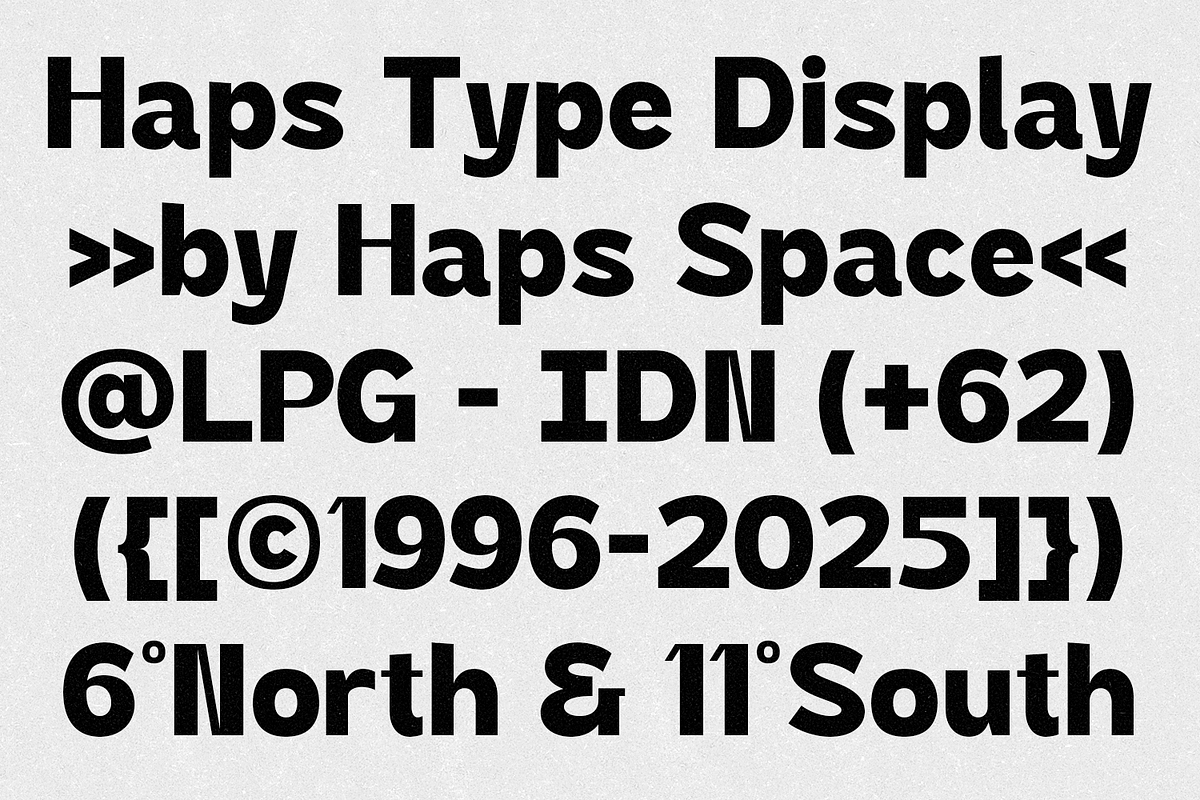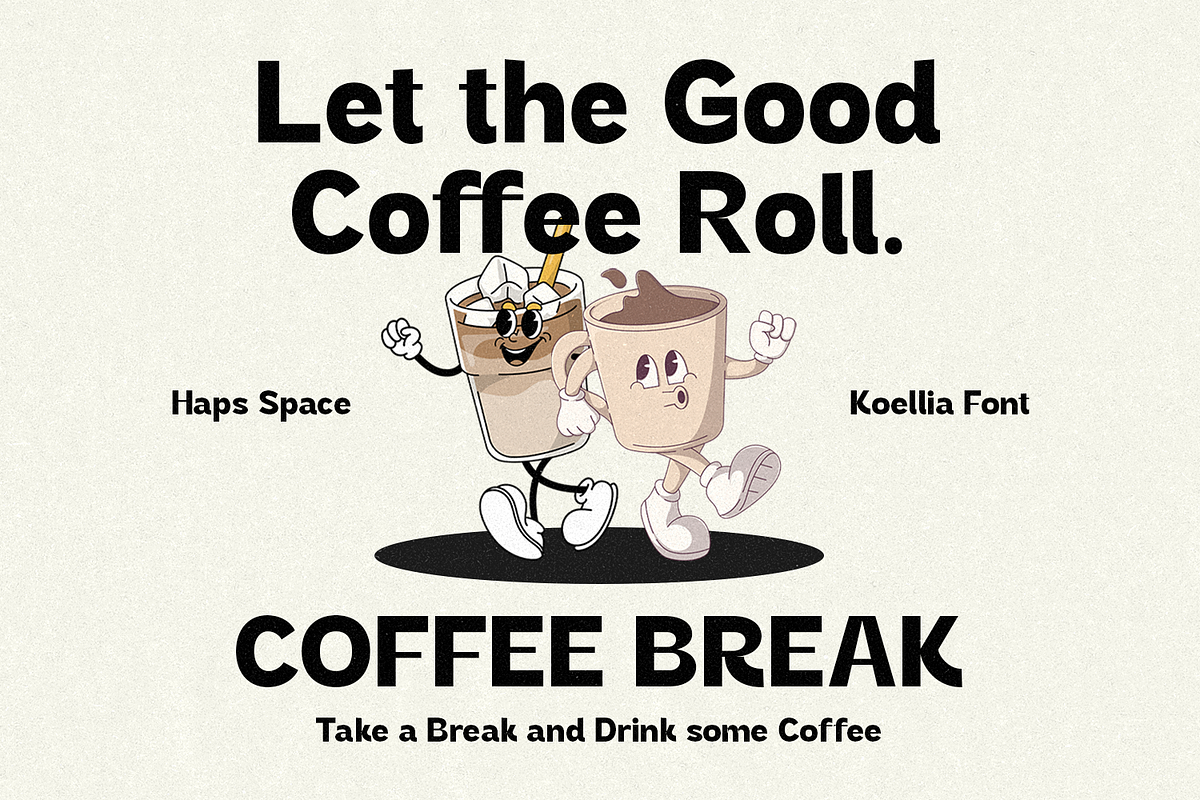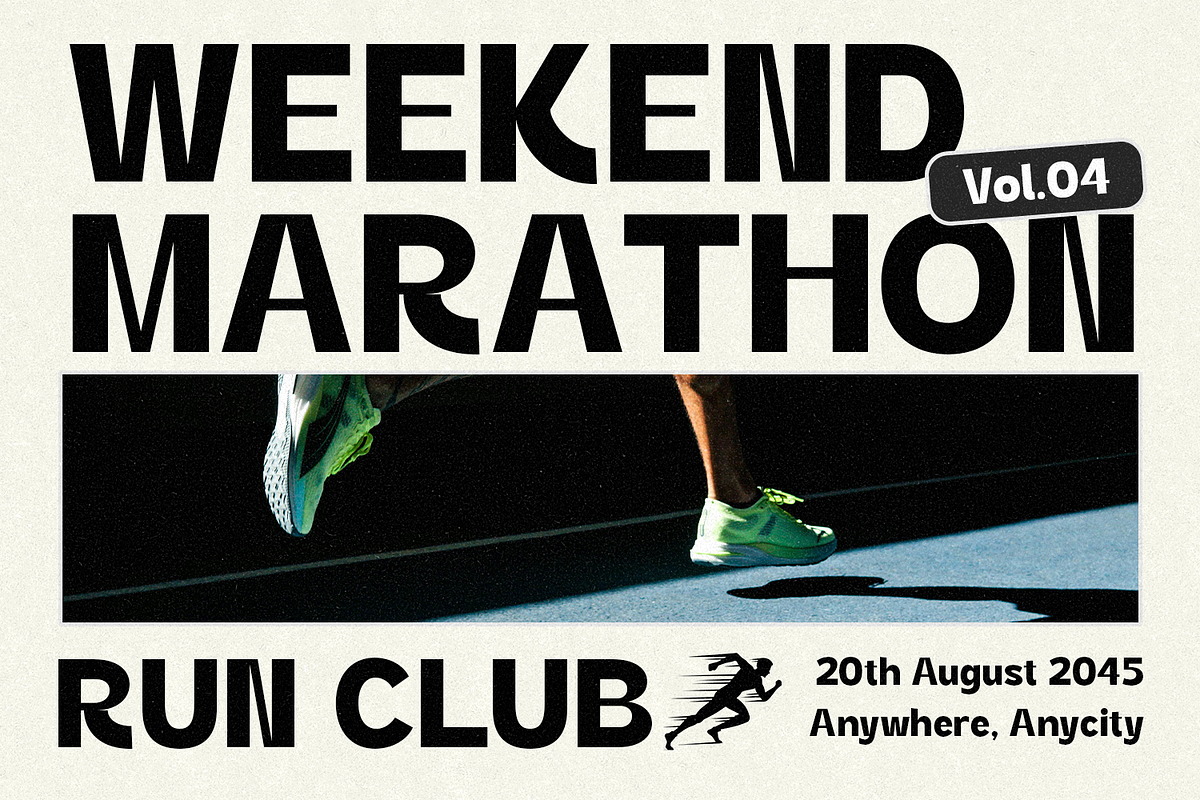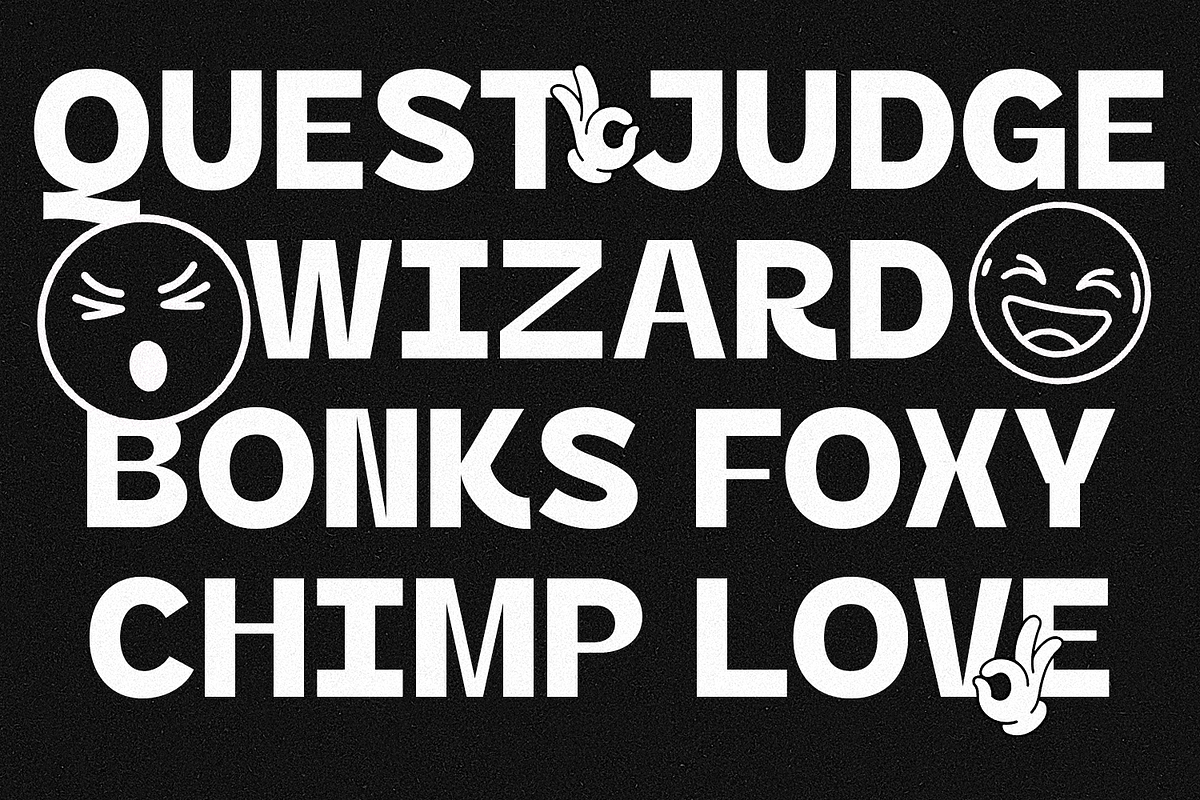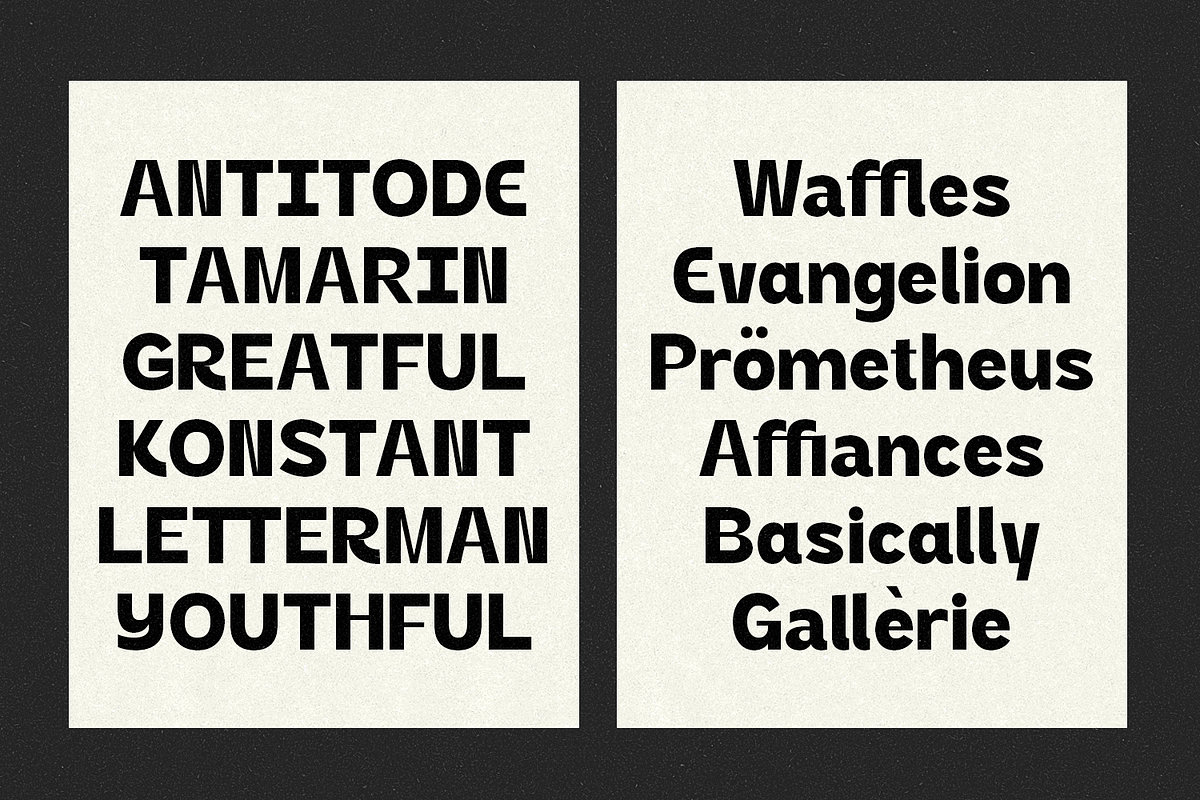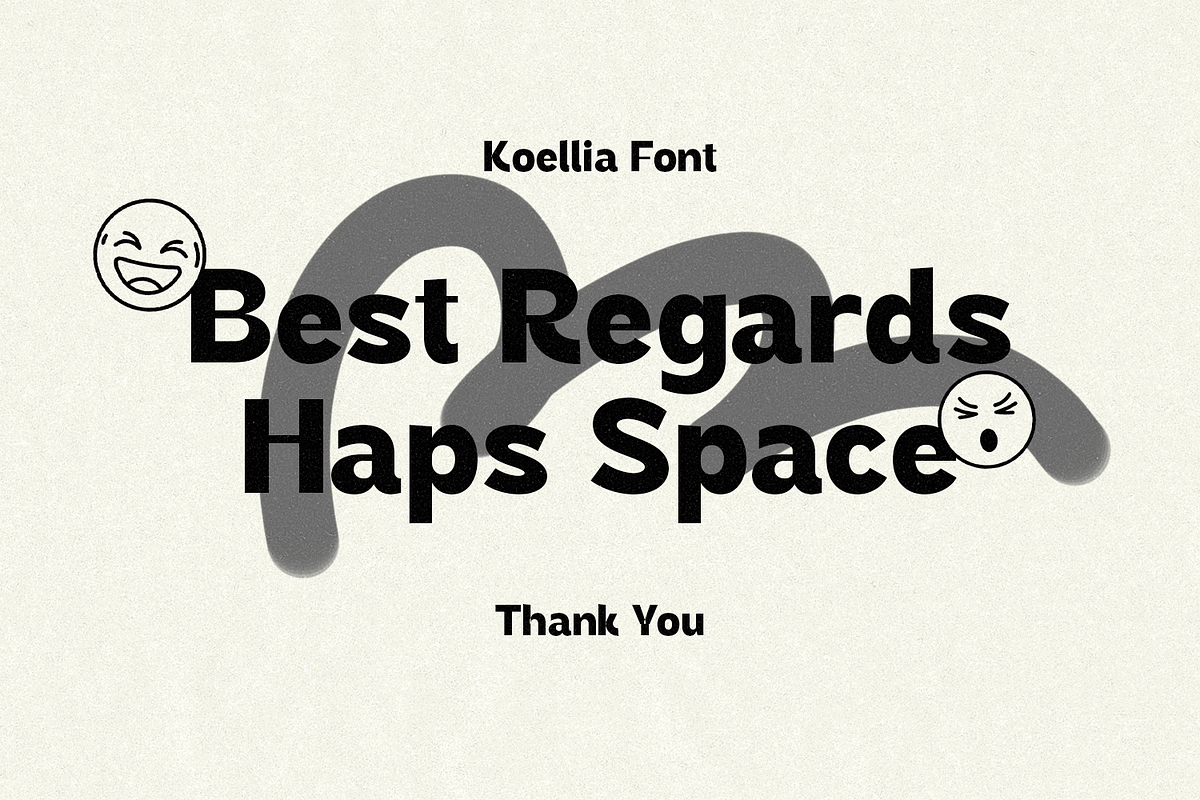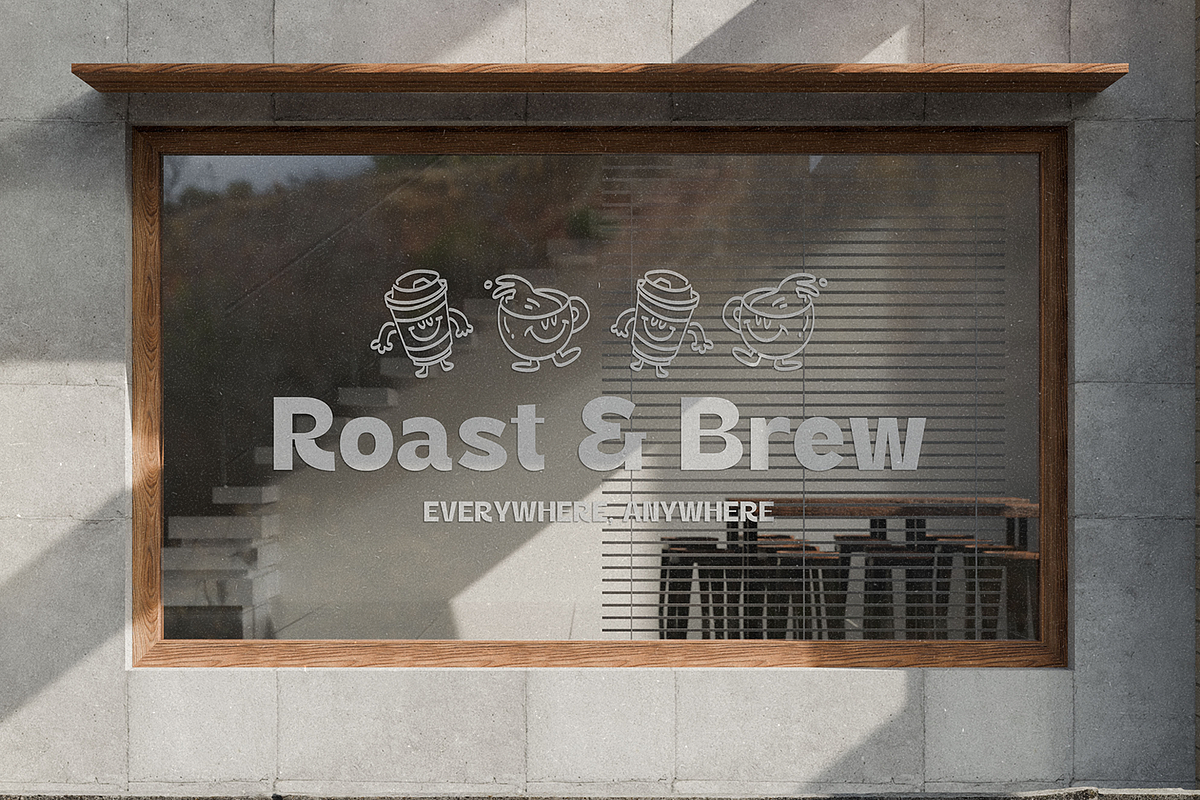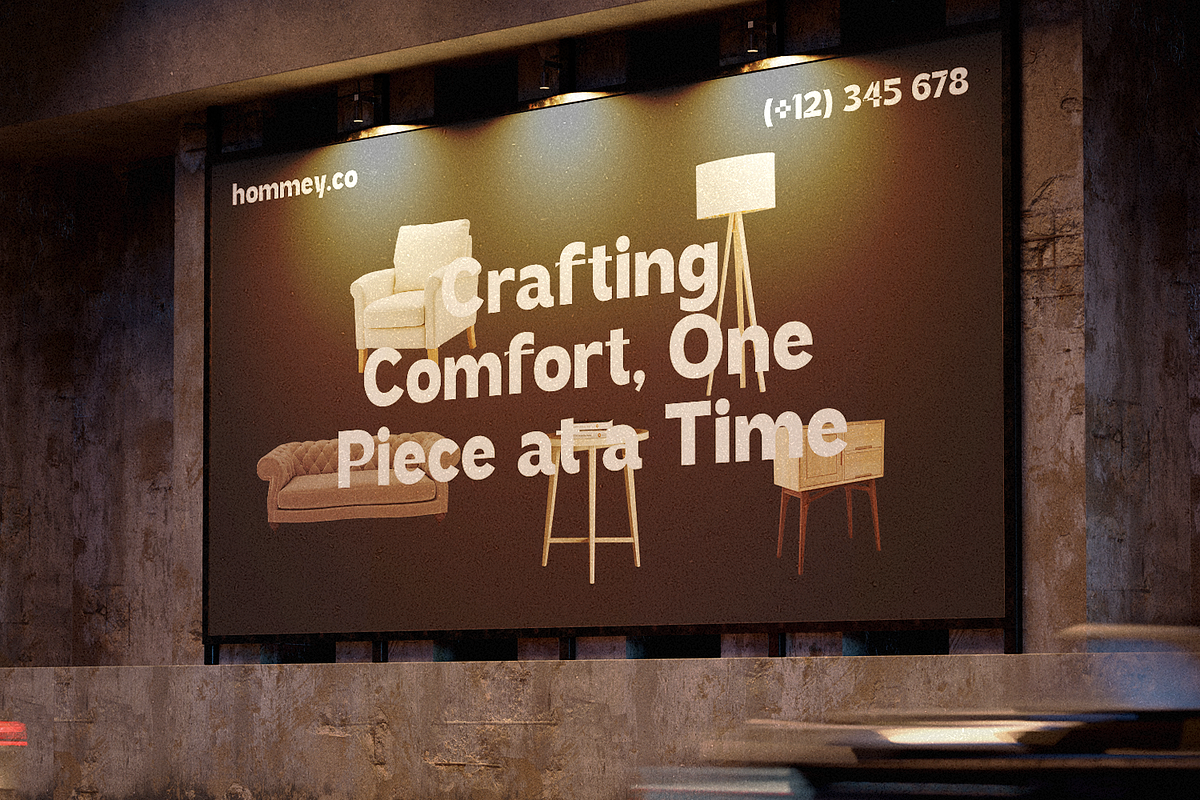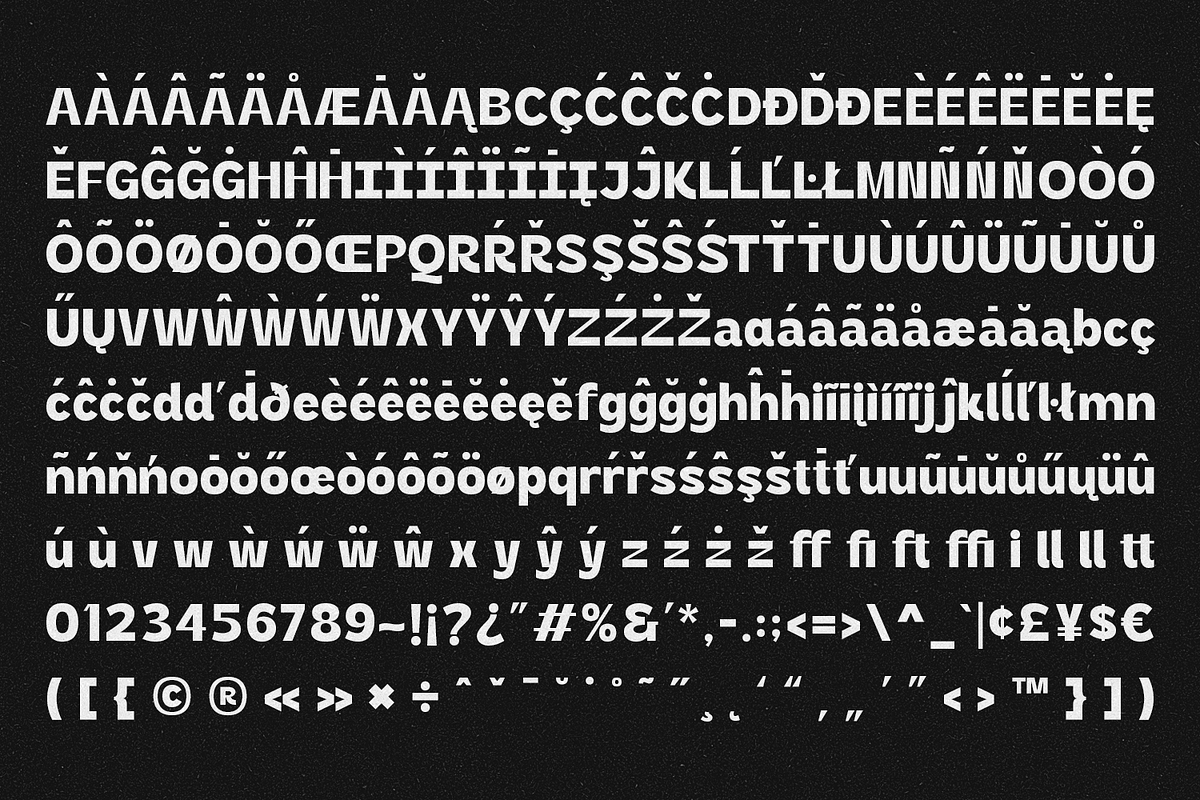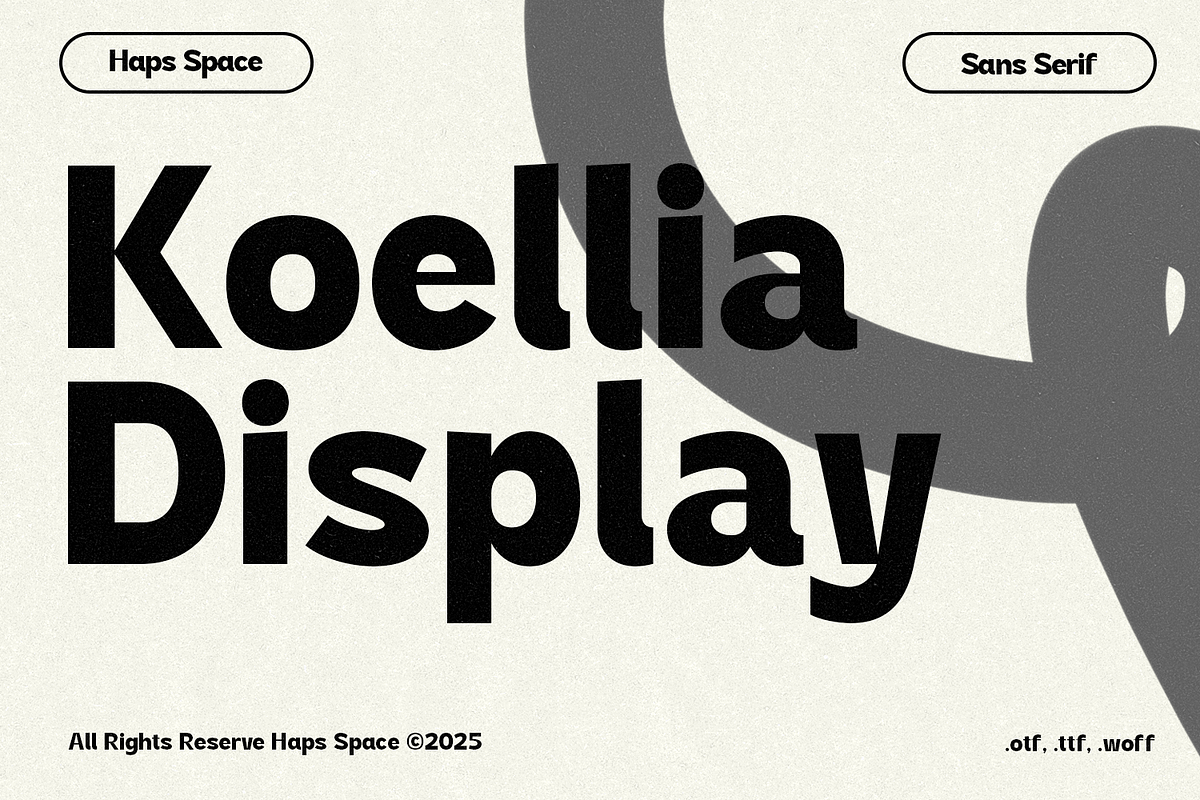
Koellia - Sans Serif Display
Koellia Display is a striking sans-serif font crafted for clarity and style. Its substantial weight and minimalist design make it perfect for creating a powerful visual hierarchy and delivering messages with authority. This font is well-suited for high-impact use cases such as posters, website headers, and corporate identity design. The included OTF, TTF, and WOFF files provide full compatibility, making it easy to integrate into your preferred design software.
- Unique Letterforms